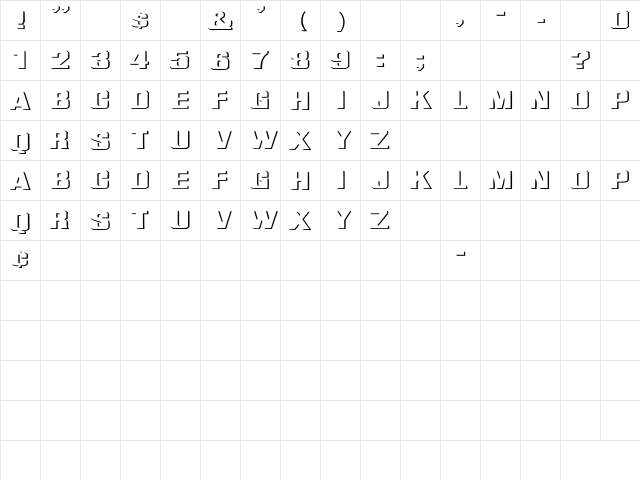
WhatA-Relief Ex Regular
Design Context for WhatA-Relief Ex Typeface
WhatA-Relief Ex is a composed and adaptable typeface that performs quietly and consistently across a wide range of design contexts.